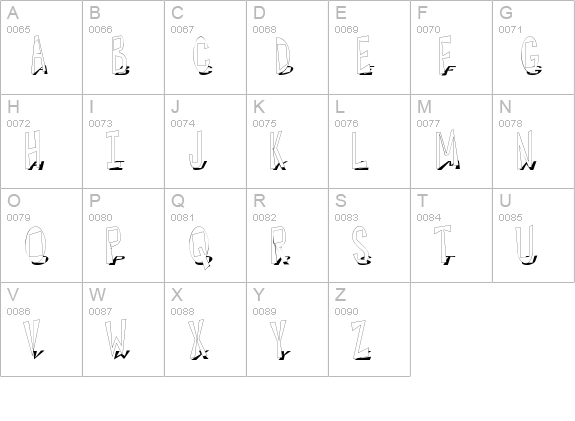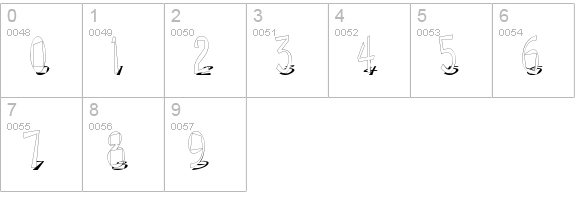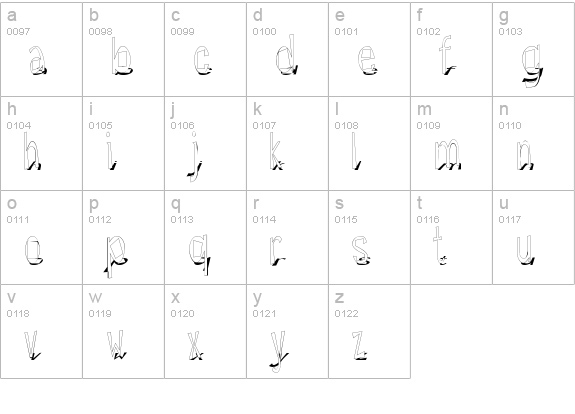
Hesitant Shadow Font Details
Introducing Hesitant Shadow font, a captivating typeface that exudes a sense of mystery and intrigue. This unique font features elegant yet slightly hesitant letterforms that cast intriguing shadows, adding depth and character to any design project. Hesitant Shadow font is perfect for creating eye-catching headlines, logos, posters, and more. The best part? Hesitant Shadow font is available for free download at FontsMarket.com, making it easily accessible for designers and creatives looking to add a touch of sophistication to their work. Don't miss out on the opportunity to elevate your designs with this captivating and versatile font. Download Hesitant Shadow font today and unleash your creativity!